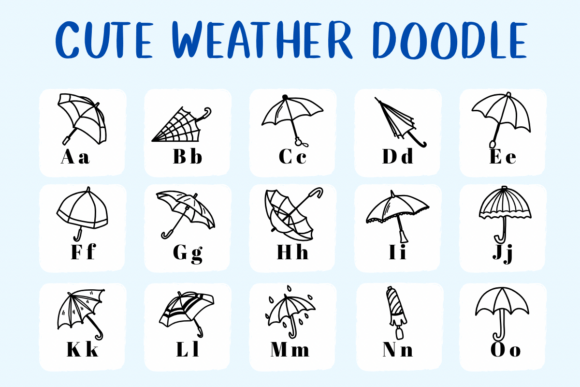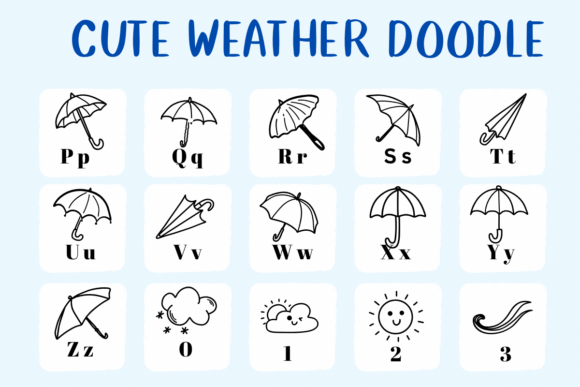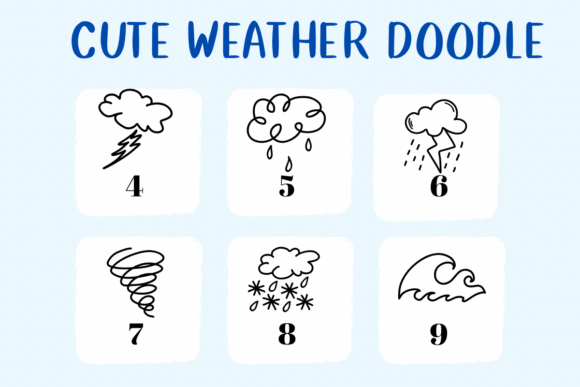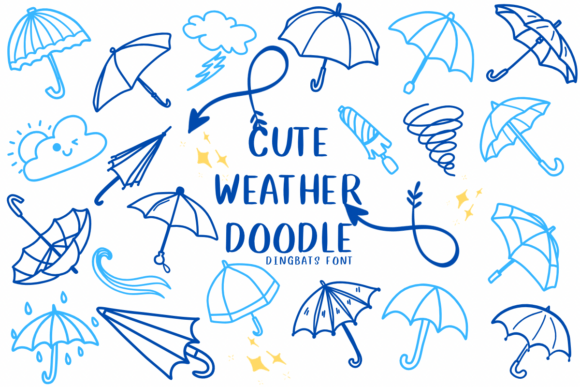
Introduction to Cute Weather Doodle Font
Cute Weather Doodle is an adorable dingbats font packed with hand-drawn weather-themed illustrations like umbrellas, clouds, lightning, and sunshine.
Perfect for planners, educational materials, weather reports, and kid-friendly designs, this font adds a charming and whimsical touch to your projects Just type a letter and get a doodle.
Key Features of Cute Weather Doodle Font
Why Choose Cute Weather Doodle Font?
Cute Weather Doodle Font offers exceptional quality and versatility, making it a valuable addition to your design toolkit. Whether you’re creating for personal projects or commercial use, Cute Weather Doodle Font delivers professional results.